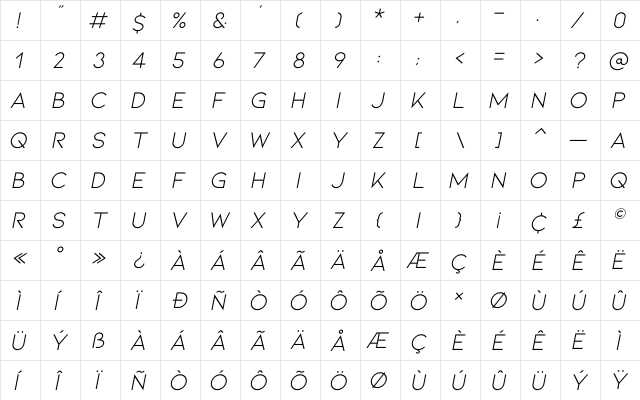
Kiona Itallic
| Designer | Ellen Luff |
Design Context for Kiona Typeface
Kiona is a composed and adaptable typeface that performs quietly and consistently across a wide range of design contexts.
Pro Tip: Pair Kiona with a font of contrasting weight or personality to build a more expressive typographic hierarchy.